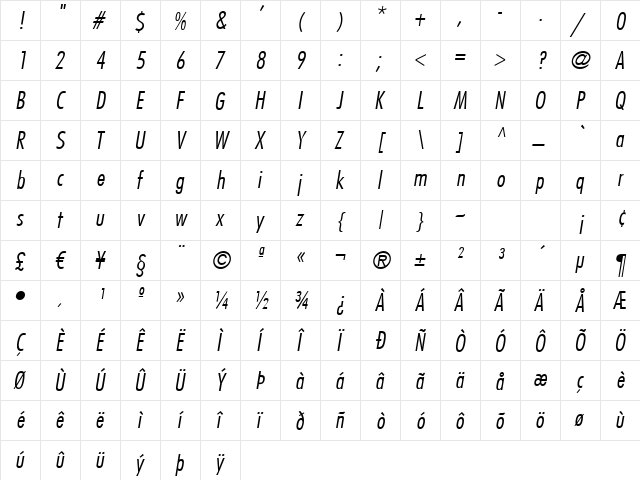
Futura LtCn BT Italic
Design Context for Futura LtCn BT Typeface
Futura LtCn BT has a distinctly futuristic character, with geometric precision and clean angles that feel at home in technology, gaming, and sci-fi contexts. The dynamic lean of this cut emphasises speed and emphasis in any layout.
Pro Tip: Use Futura LtCn BT in combination with a neutral sans for body text. Let it define the brand voice in headlines while keeping reading comfortable elsewhere.